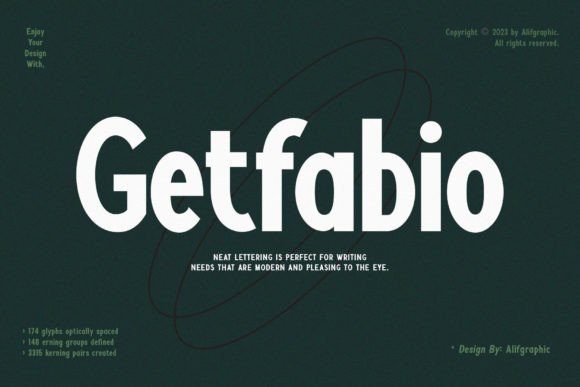
Jump into the world of elegance and boldness with Getfabio Font, a sans serif masterpiece crafted by alifgraphic. This font family exudes an aura of sophistication and modernity, making it the perfect choice for those seeking to make a lasting impression.
Getfabio's meticulously designed characters dance across the page with grace and poise, embodying the essence of timeless beauty. Its versatility knows no bounds, allowing you to effortlessly elevate your creative projects to new heights.
Picture this: a wedding invitation adorned with Getfabio's elegant curves, evoking a sense of romance and grandeur. Or envision social media posts that captivate audiences with their bold and eye-catching headlines, thanks to Getfabio's commanding presence.
Unleash your creativity with Getfabio's diverse range of applications. Design stunning stationary art that reflects your personal style, or craft logos that exude professionalism and sophistication. Let Getfabio's timeless charm add a touch of allure to your presentations, brochures, and flyers.
But Getfabio is more than just a font; it's an experience. Immerse yourself in the world of modern typography and let your imagination soar. With Getfabio by your side, you'll discover a new level of creative expression, leaving a lasting impact on your audience.